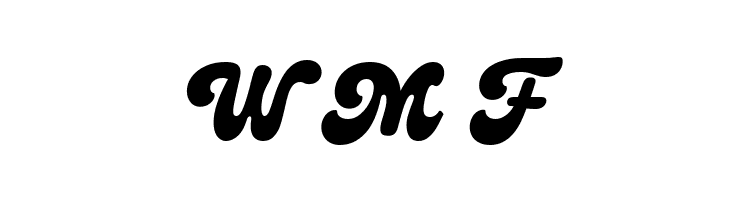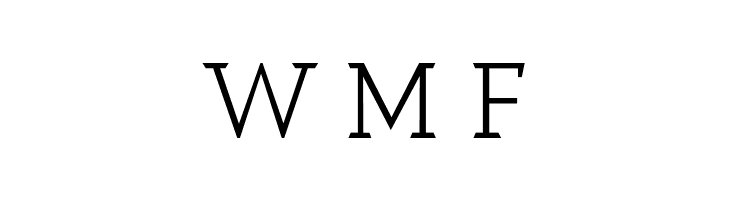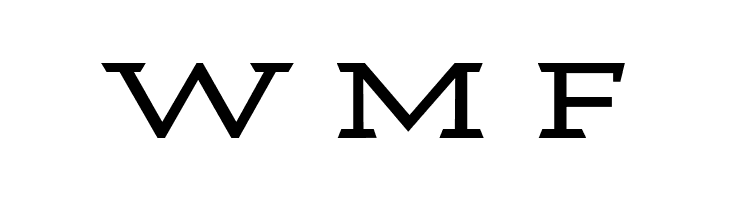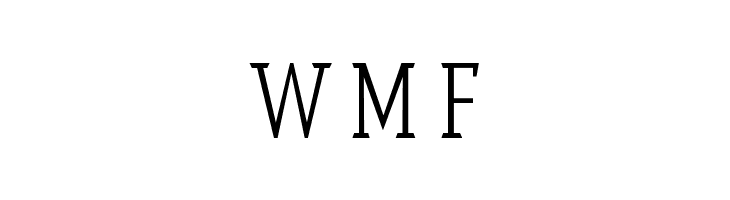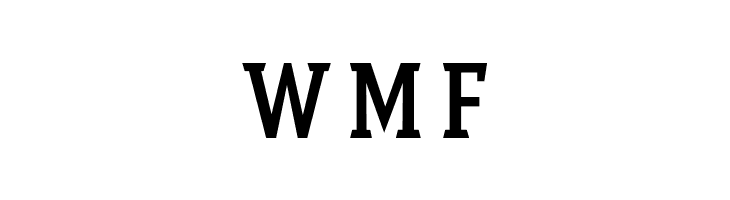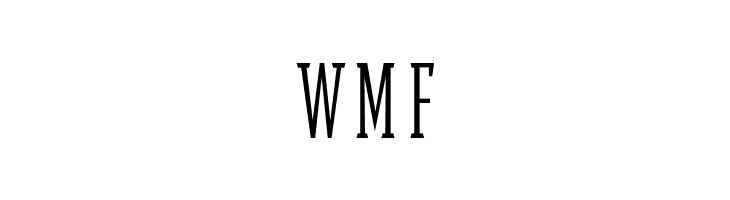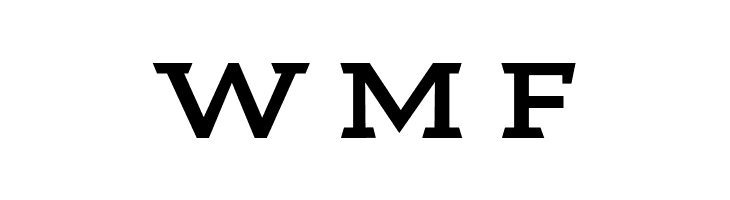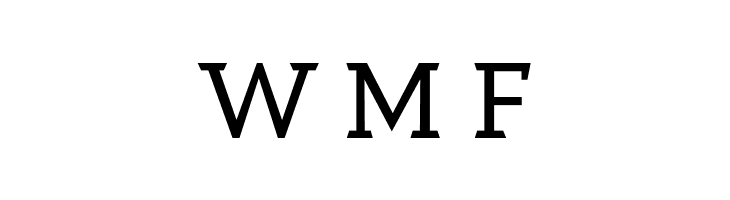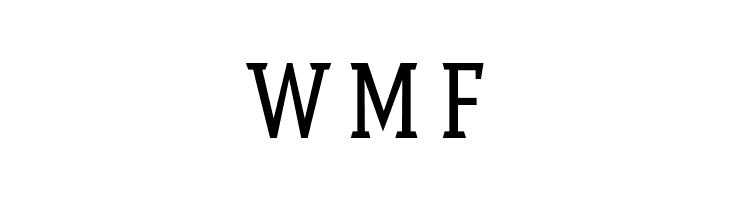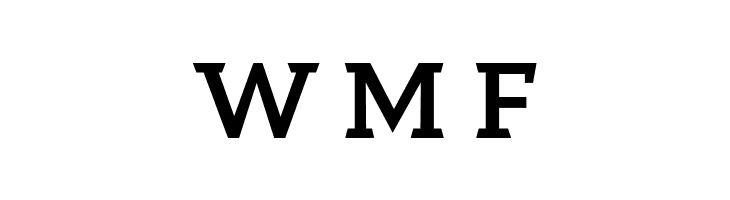
A decorative and playful font with bold, whimsical elements and elegant serifs.
A bold, modern serif font with a strong, impactful presence.
A decorative and bold font with ornate uppercase and straightforward lowercase letters.
A bold, flowing script font with elegant, cursive letterforms.
A bold, decorative blackletter-style font with intricate details.
An elegant script font with graceful, flowing lines and sophisticated style.
A geometric, modern font with a clean and structured appearance.
A bold, decorative serif font with intricate details and flourishes.
A bold, cursive font with interconnected, rounded strokes.
A bold, rugged font with a vintage, handcrafted feel.
A modern, geometric font with a structured and versatile design.
A modern, extra-condensed font with bold, narrow characters.
A bold, extra-condensed font with a modern, impactful style.
A bold, extended slab serif font with a strong geometric presence.
A condensed, light font with a modern and geometric style.
A bold, condensed font with geometric precision and modern appeal.
A tall, narrow, and modern condensed font with uniform stroke width.
A bold, extended font with a geometric, industrial style.
A bold, geometric font with a modern and professional style.
A bold, condensed font with angular, geometric letterforms.
A bold, slab serif font with geometric shapes and a vintage feel.
A bold, structured font with a modern, industrial feel.
A bold, extended slab serif font with a modern yet vintage feel.
A modern, extra-extended light font with geometric and airy letterforms.
A modern, geometric monospaced font with low contrast and uniform spacing.
A bold, condensed font with a textured, vintage appearance.
A delicate and elegant handwritten script font with flowing, connected letterforms.
A delicate and elegant handwritten script font with flowing cursive letterforms.
A modern script font with elegant, flowing cursive lines.
A bold, high-contrast decorative font with unique serifs and flourishes.
A bold blackletter font with sharp, angular lines and intricate detailing.
A bold, ornate Gothic script with intricate flourishes and sharp, angular lines.
A bold, decorative font with vintage, ornate details and sharp serifs.
An ornate blackletter font with gothic and medieval influences.